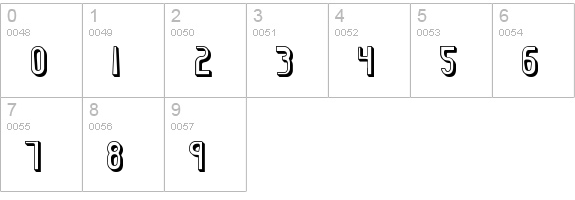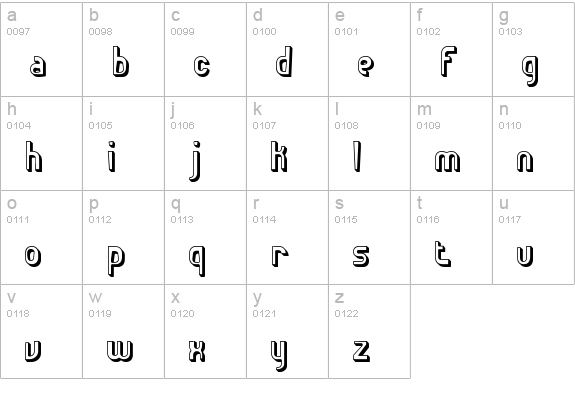
Euphoric 3D -BRK- font is a visually captivating and dynamic typeface that exudes a sense of euphoria and excitement. Its three-dimensional design gives it a modern and innovative look, making it perfect for projects that aim to stand out and make a bold statement. This font is not only striking in appearance but also versatile, suitable for a wide range of design projects such as logos, posters, headlines, and more. The intricate details and depth of the 3D effect add a sense of depth and dimension to any text, making it visually engaging and appealing. The best part? Euphoric 3D -BRK- font is available for free download at FontsMarket.com. Whether you're a designer looking to add a unique touch to your work or a creative individual in search of a fresh and exciting font, Euphoric 3D -BRK- font is the perfect choice. Download it today and unleash your creativity with this stunning typeface!